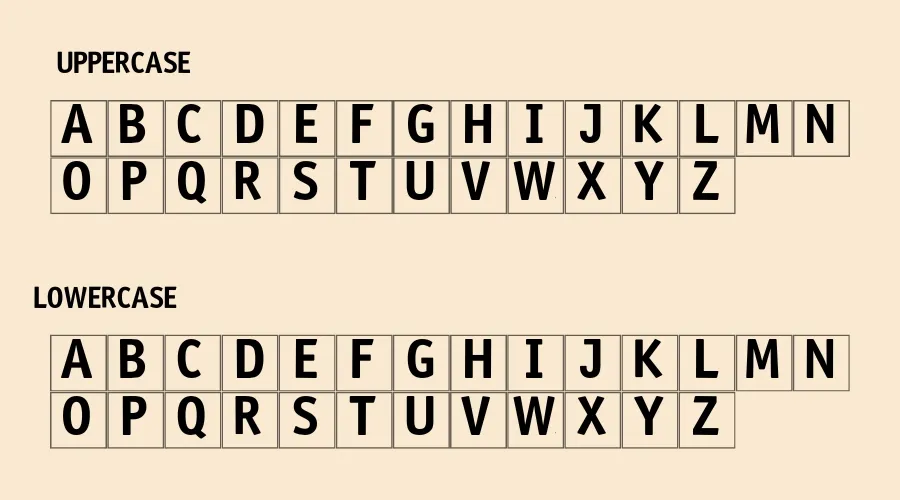
About NHL Angeles Font
The Sans serif typeface family includes the NHL Angeles Font, which fits into that category and has a nice texture. The Eriq Jaffe is a well-known typographic designer, created it. IT contains unique styles and weights like Regular, and bold.
It includes unique glyphs and 66 several outstanding characters such as small and capital letters, numbers, punctuation, and much more. The online generating tool for this font is ideal for recycling all of your primary textures into fashionable and modern shapes.